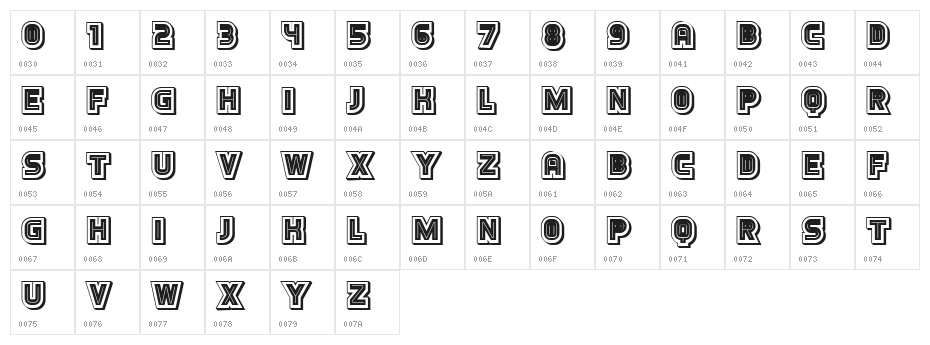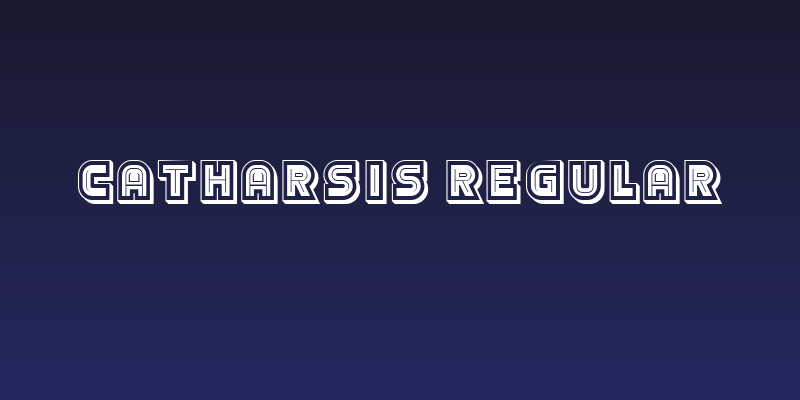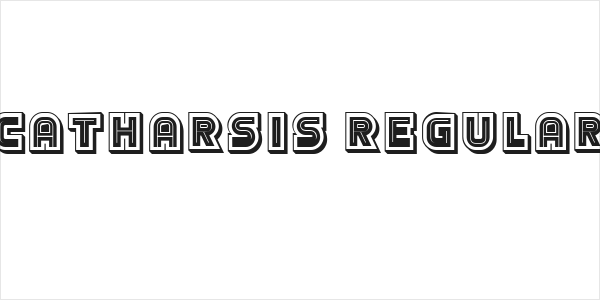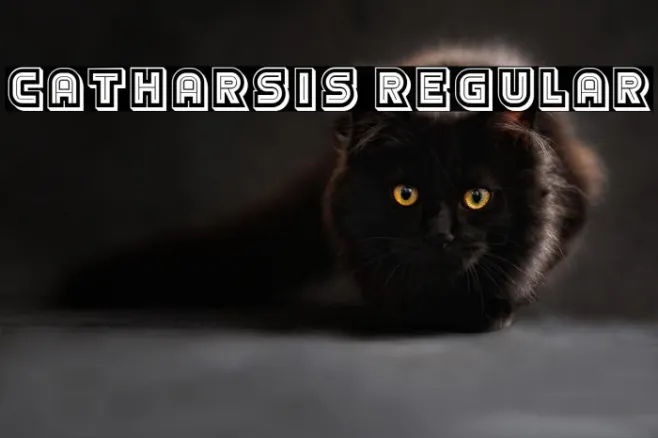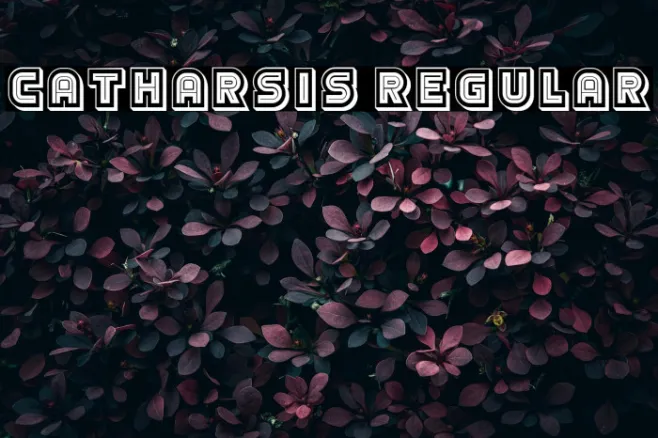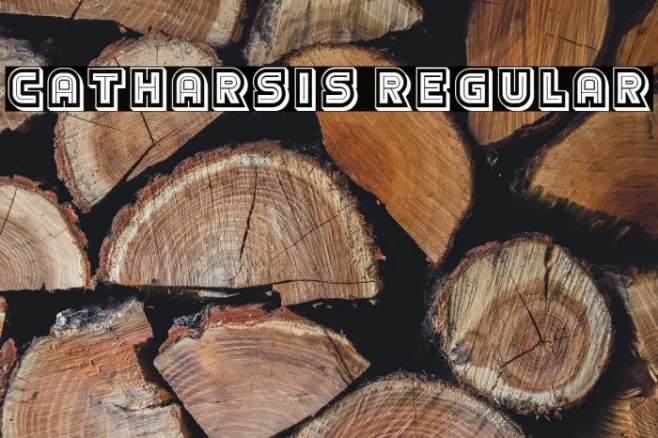
Catharsis Regular Font
Catharsis Regular Description
This font features a bold, geometric design with a strong three-dimensional effect. Each character is outlined with a thick border, creating a shadow-like appearance that gives depth and emphasis. The letters are uppercase, with a consistent width and height, contributing to a uniform and structured look. The style is reminiscent of retro or vintage signage, making it eye-catching and suitable for display purposes. The numbers and special characters follow the same design principles, ensuring cohesion across all elements.
| Proposed Projects | Ideal for posters, headlines, logos, and any project requiring a striking, vintage-inspired typeface. |